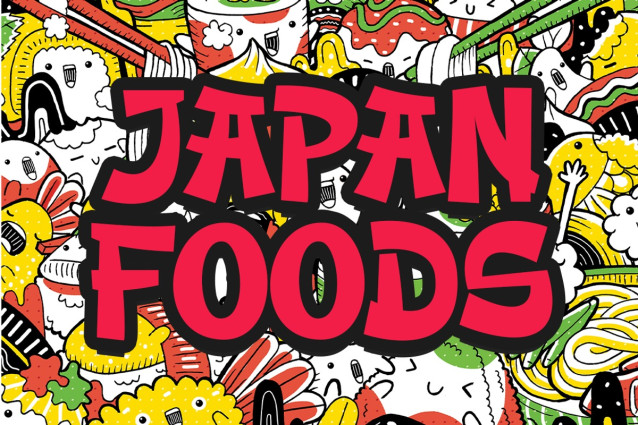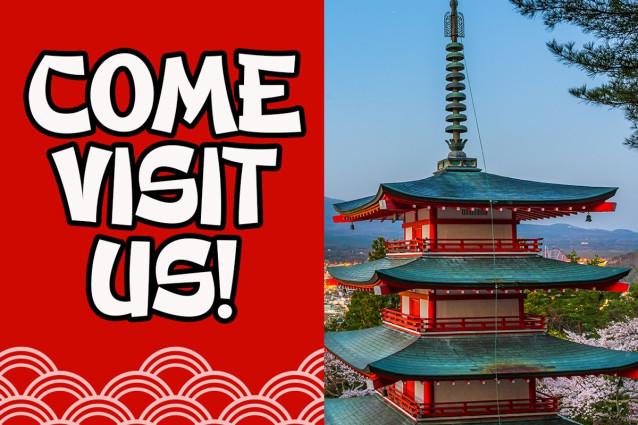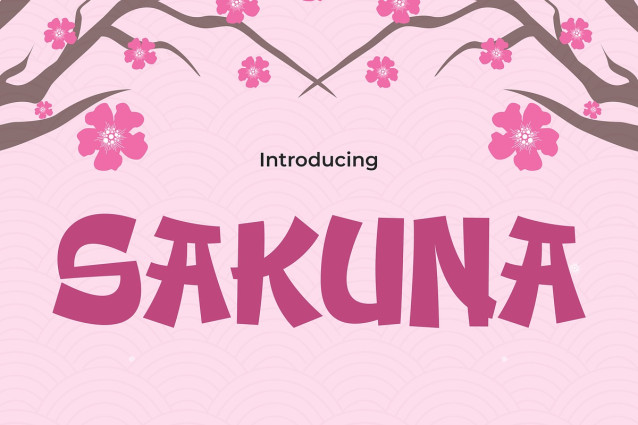
Sakuna Font
Sakuna Font a font that encapsulates the essence of Japanese cuisine in every letterform. Inspired by the artistry and precision found in traditional Japanese cooking, “Sakuna” brings a taste of authenticity to your design projects. Each character is infused with the graceful strokes and elegant simplicity reminiscent of calligraphy found in Japanese culinary culture, offering a visual feast for the eyes.
Elevate your food-related designs with the mouthwatering charm of “Sakuna.” Whether you’re designing menus, recipe cards, or food packaging, this font adds a touch of sophistication and cultural flair that captures the essence of Japanese gastronomy. From sushi bars to ramen restaurants, “Sakuna” sets the perfect tone, inviting your audience to savor the rich heritage and exquisite flavors of Japanese cuisine. Let “Sakuna” be your culinary companion as you embark on a journey of taste and design excellence.